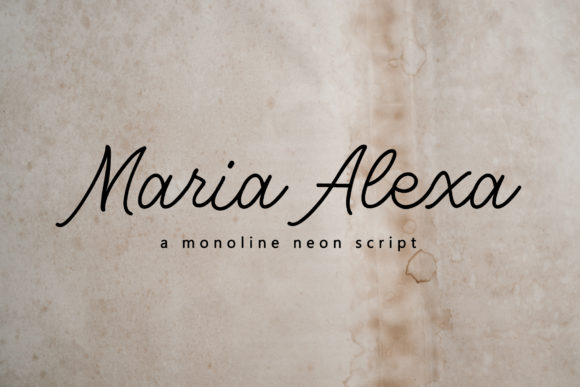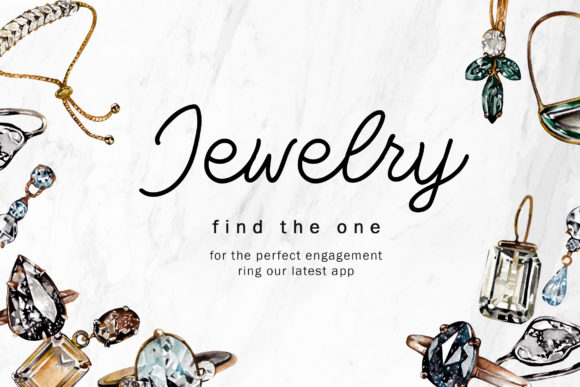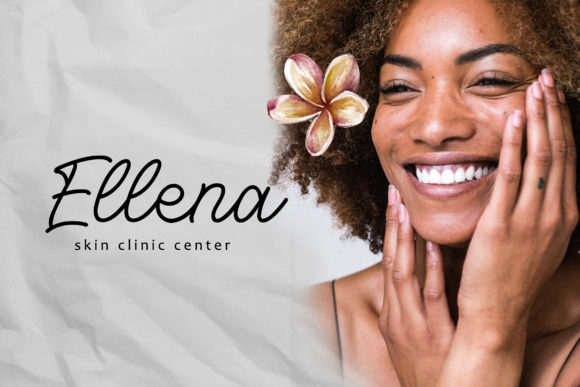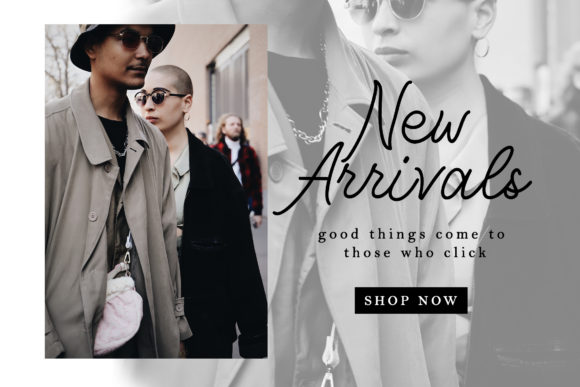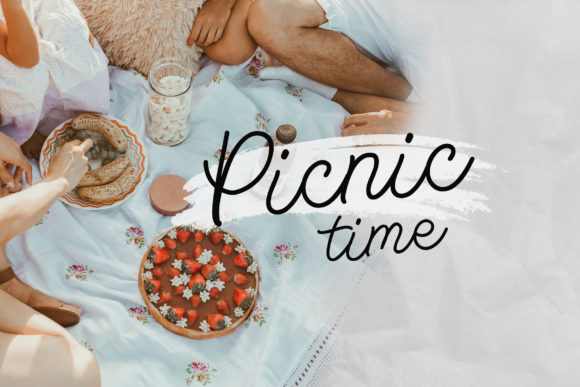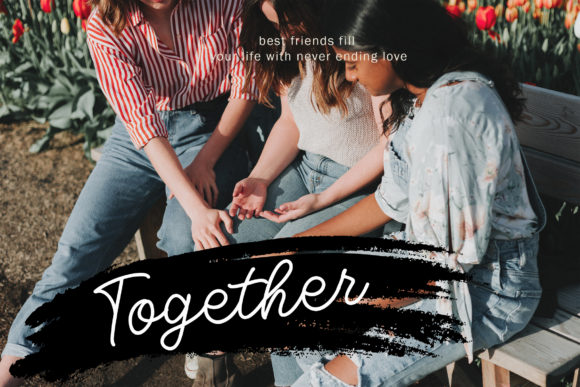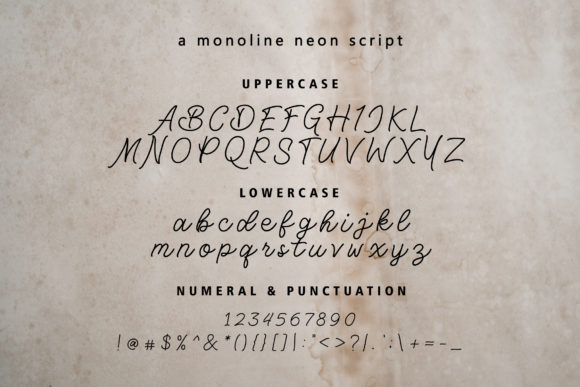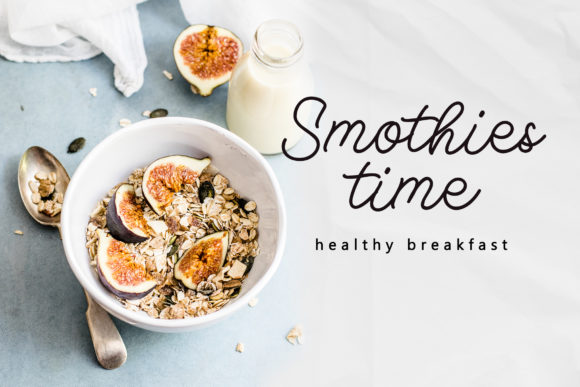
Maria Alexa Font
About Maria Alexa Font
Maria Alexa sounds absolutely lovely! As a delicate, casual, and thin script font, it adds a touch of elegance and versatility to your designs. Fall in love with its graceful letterforms and unleash your creativity to create stunning wedding invitations, beautiful stationery art, eye-catching social media posts, and so much more.
The delicate nature of Maria Alexa brings a sense of refinement and sophistication to your designs. Its thin and graceful strokes create an airy and light feel, making it perfect for projects that require a touch of subtlety and delicacy. Whether you’re designing wedding invitations, love letters, or any other project that calls for a romantic and elegant aesthetic, Maria Alexa delivers with its gentle and flowing script.
The casual style of Maria Alexa adds a touch of approachability and versatility to your designs. It strikes a balance between sophistication and friendliness, making it suitable for a wide range of applications. Use it to create beautiful stationery art, such as personalized note cards, journals, or artwork. Its casual vibe also lends itself well to social media posts, adding a touch of creativity and personality to your visual content.
The thin nature of Maria Alexa allows it to make a visual impact while maintaining an elegant and refined look. It works wonderfully in larger sizes, creating eye-catching headlines or titles that draw attention. Additionally, it can be used in smaller sizes for captions, quotes, or body text, adding a touch of elegance and readability to your designs.
Embrace the versatility of Maria Alexa and let your imagination soar. Create gorgeous wedding invitations that capture the essence of romance and love. Design beautiful stationery art that reflects your personal style and attention to detail. Craft eye-catching social media posts that engage your audience. With Maria Alexa, the possibilities are endless.
In summary, Maria Alexa is a delicate, casual, and thin script font that adds elegance and versatility to your designs. Fall in love with its graceful letterforms and use it to create gorgeous wedding invitations, beautiful stationery art, eye-catching social media posts, and much more. Let Maria Alexa’s refined and subtle nature elevate your designs and leave a lasting impression.